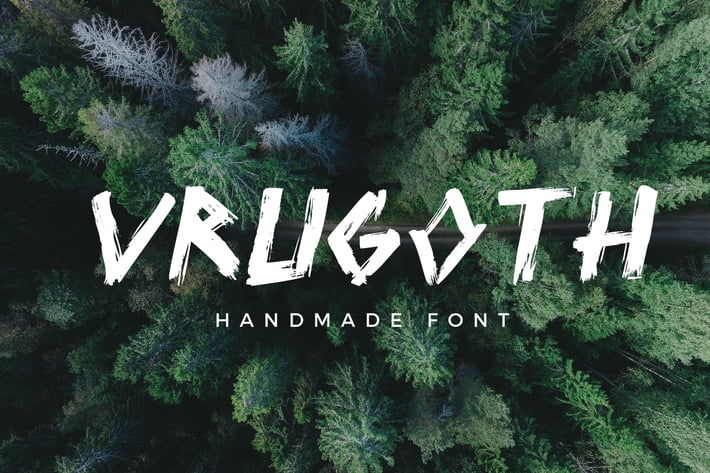
Vrugoth - Handmade Font
We Provide You one of the best Stylish Hand Written Script. Best match for logos, header, Titles, Prints & other Creative process possibilities.
Create a Extraordinary Typography / lettering results by using Vrugoth - Handmade Fonts
+ Clean Results